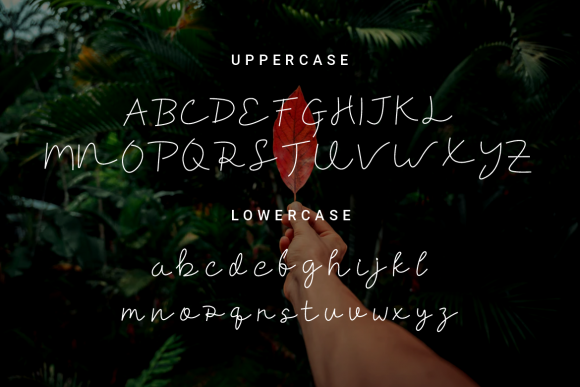
Discover the Delicate Charm of Caliova Font
Have you ever stared at a blank canvas, feeling like the perfect idea is just out of reach? The blank page can be intimidating, but what if you had the right tool to spark your creativity? For designers, finding the perfect font can be the key to unlocking a project’s full potential. This is where Caliova Font comes in – a thin and delicate script font that adds a touch of elegance to any design.
With its versatility and refined aesthetic, Caliova Font is an invaluable asset for any designer. Whether you’re working on a wedding invitation, a blog post, or a marketing campaign, this font can help your project stand out from the crowd. Its subtle charm makes it easy to pair with a wide range of styles and themes, making it a valuable addition to your design toolkit.
Caliova Font Key Features
• Font Type: Caliova Font is a script font, ideal for creating elegant and sophisticated designs.
• Unique Characteristics: Features a flowing, cursive design with a mix of round and angular shapes, creating a unique visual effect.
Caliova Font Review
Overall, I’d say Caliova is a decent font choice for creative projects. The font has a lot of potential, but like any other font, it has its strengths and weaknesses.
• The font’s unique design elements, such as the distinctive letterforms and ornaments, can add a touch of elegance to any project.
• Caliova’s high-quality vector graphics make it suitable for both digital and print applications.
• The font’s legibility is good, making it easy to read even at smaller font sizes.
• The font’s intricate design may not be suitable for body text, as it can be overwhelming and difficult to read in large quantities.
While Caliova has some notable strengths, its limitations may prevent it from being a go-to font choice for all projects. However, for specific uses, such as titles, headings, or decorative elements, Caliova can be a great addition to your design toolkit.
Caliova Font is ideal for:
• Creating elegant and sophisticated designs.
• Adding a touch of luxury to your branding.
• Designing invitations, menus, and other formal documents.
Remember to use Caliova Font in combination with other elegant design elements to achieve the desired look.